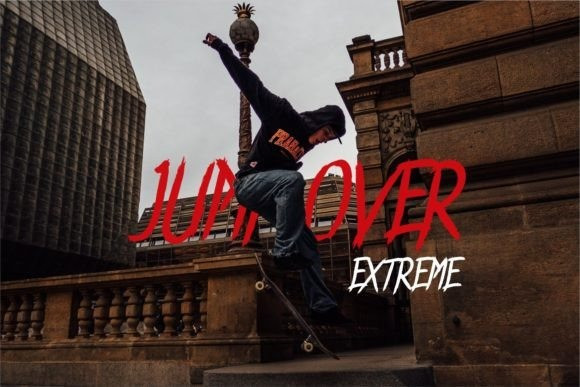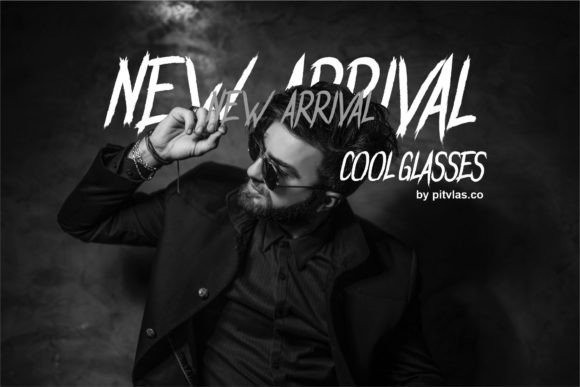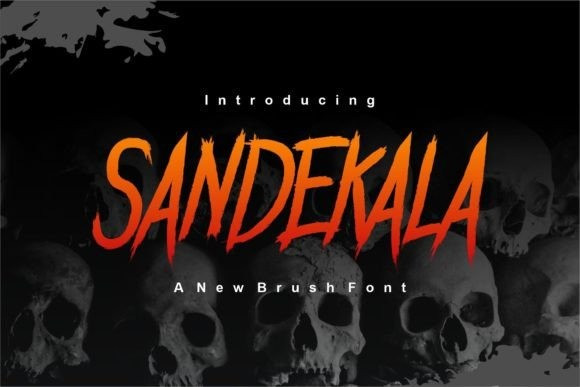
Sandekala Font
Sandekala Font is a modern brush font designed for horror designs. The strong and unique characters make this font perfect for your projects such as a Halloween party invitation, flyers, fashion, scrapbooking and web design and so much more.